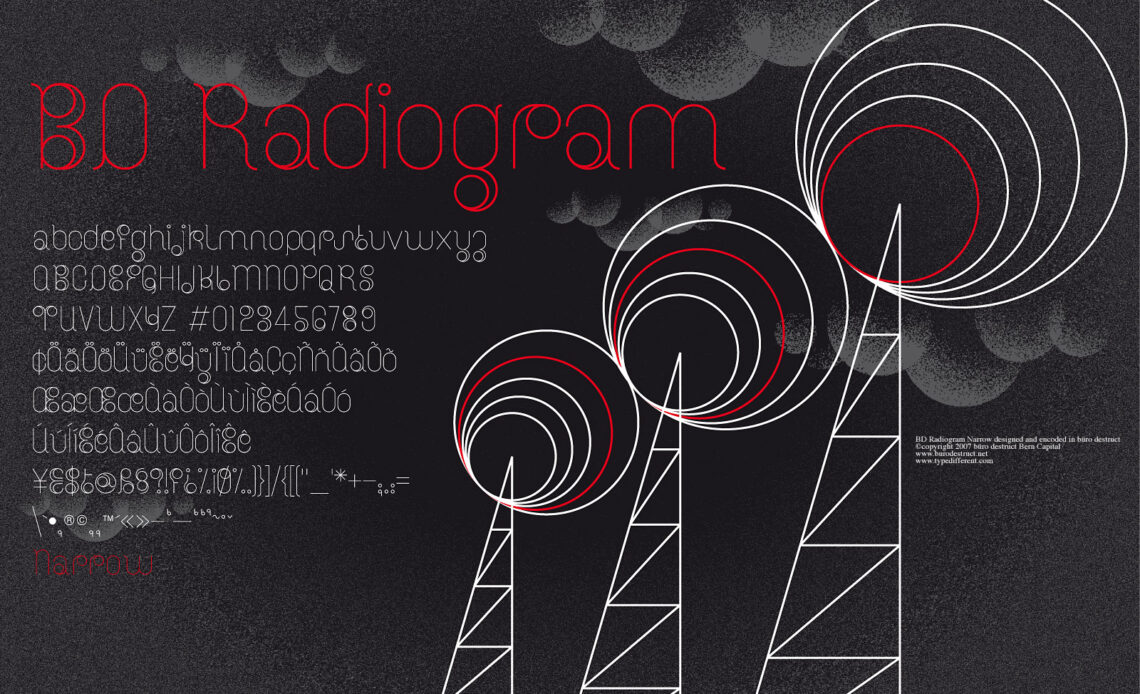
BD Radiogram Font
**BD Radiogram**
Step into the enchanting realm of BD Radiogram, a decorative font meticulously crafted by the renowned Büro Destruct. This exquisite creation embodies the essence of lightness and grace, its delicate strokes evoking the ethereal quality of airwaves and the sweet whispers of a summer breeze.
With its two captivating styles, rounded and narrow, BD Radiogram offers unparalleled versatility. Its rounded contours exude a playful and inviting charm, while its narrow counterpart exudes a touch of elegance and sophistication. The curves of BD Radiogram are like musical notes dancing across a page, creating a symphony of visual harmony.
Unleash your creativity with BD Radiogram and watch your designs soar to new heights. Its thin, airy lines effortlessly complement whimsical illustrations, evocative paintings, and atmospheric photographs, seamlessly blending into the tapestry of your artistic vision.
Whether you're a seasoned designer or a budding enthusiast, BD Radiogram is the perfect font to elevate your creations. Its enchanting allure will captivate your audience, leaving an unforgettable mark on their minds and hearts.